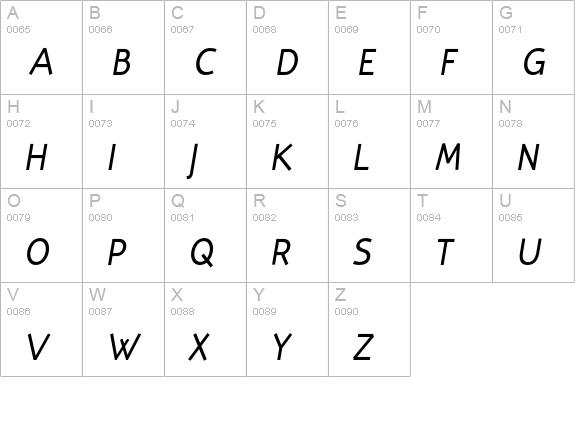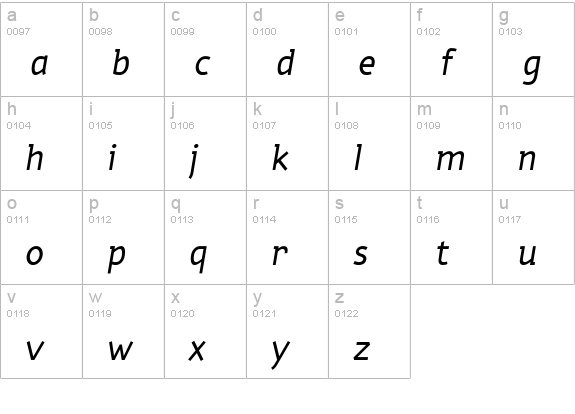
Torus Italic is a distinctive, italic variant in the Torus typeface family \xE2\x80\x94 well suited to design and typography projects.
Torus Italic is a striking and versatile font that exudes elegance and sophistication. Its sleek and fluid curves create a sense of movement and grace, making it perfect for a variety of design projects. This font's unique italic style adds a touch of modernity and creativity to any text, making it stand out from the crowd. With its balanced proportions and impeccable letterforms, Torus Italic is both visually pleasing and highly legible, ensuring that your message is effectively communicated. Whether you are designing a logo, crafting a headline, or creating a stylish invitation, Torus Italic offers endless possibilities. Its timeless appeal and contemporary flair make it suitable for both formal and informal designs, effortlessly elevating your work to the next level. Best of all, Torus Italic is available for free download at FontsMarket.com. This means that you can easily access and use this incredible font in all your projects without any limitations. Its free availability makes it an excellent choice for designers, students, and anyone looking to add a touch of sophistication to their work. So why wait? Download Torus Italic today and unleash your creativity with this stunning font. With its effortless elegance and free availability, it's a must-have for any design enthusiast.